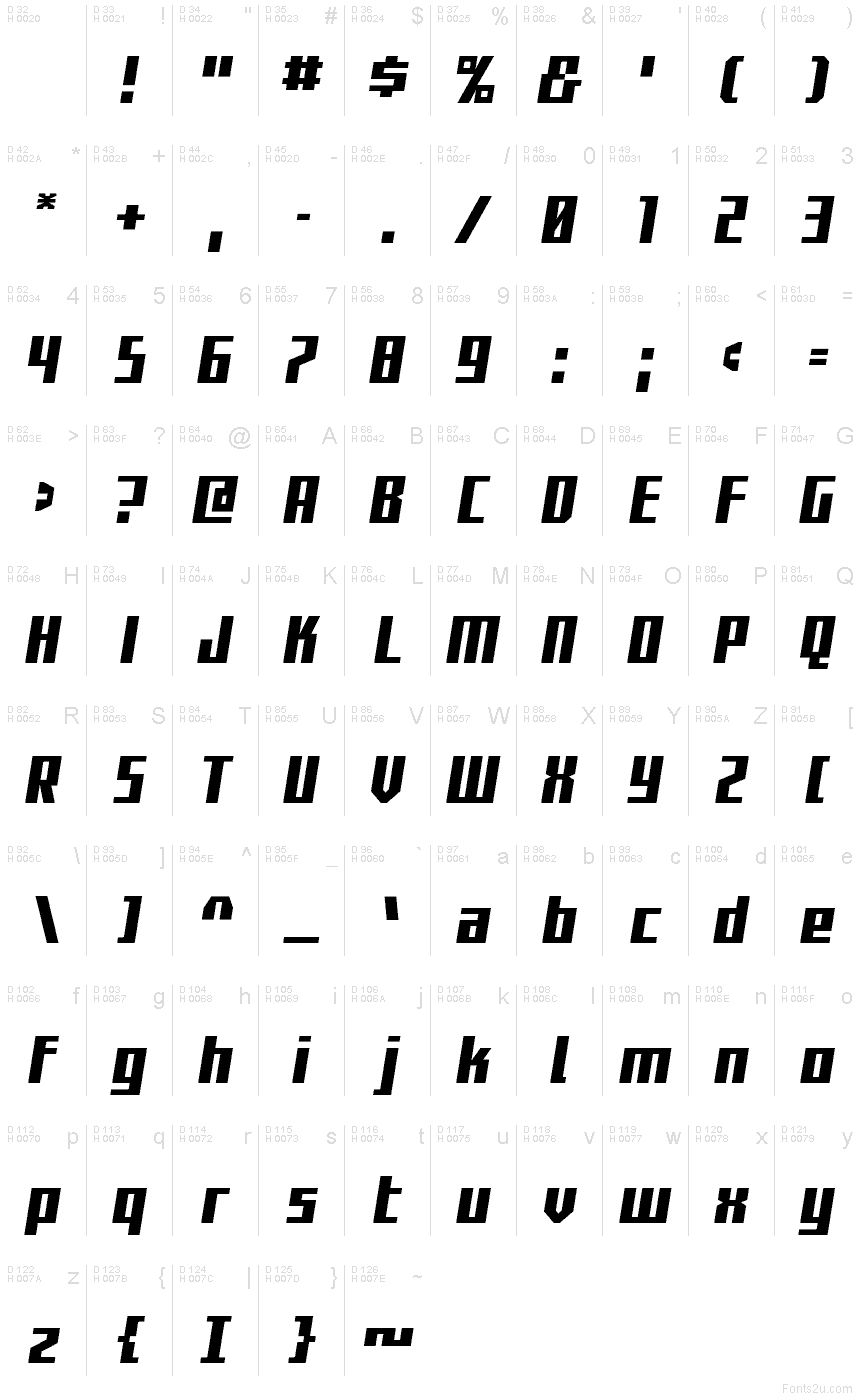
Capitol City Semi-Straight
Capitol City Semi-Straight font by Iconian Fonts is a free techno display font with a mid-century modern style. Angular, retro-inspired, and designed with a geometric sense, this is the perfect selection for typography ideas that need visual impact. Editing has not been an option as all the edges of the letters are intentionally straight and non-curvy.
Use this condensed typeface in projects that need boldness such as branding for tech companies and entertainment logos. Give it life in sports industry business cards or stationery designs. Its effectiveness can be easily folded into packaging labels, posters, brochure cover pages, tattoos armbands, editing software watermarks/logos to name few ideas!